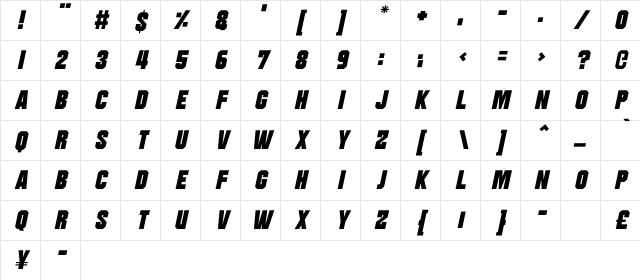
Moonbase Delta Italic Free Font
Moonbase Delta Italic
Design Context for Moonbase Delta
Moonbase Delta is a composed and adaptable typeface that performs quietly and consistently across a wide range of design contexts. The slanted form adds forward momentum and visual energy.
Pro Tip: Use Moonbase Delta for emphasis, pull quotes, and subheadings where its slanted energy can add rhythm to the layout.